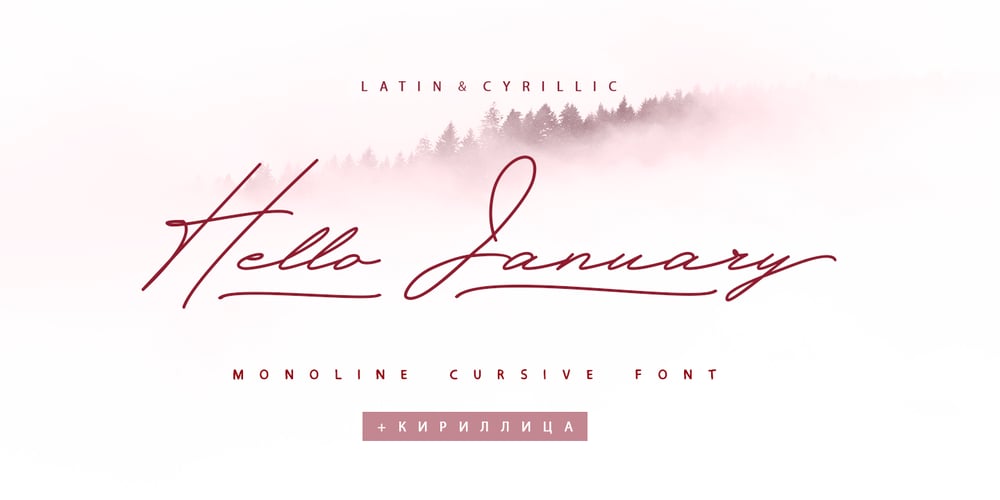
Hello January Cyrillic Font Family was designed by Iryna Dviliuk and published by Ira Dvilyuk. Hello January Cyrillic contains 2 styles and family package options. The slope and clear rhythm of the Hello January Cyrillic cursive script font will harmoniously blend in with the laconic design of your projects. Also, elements from the Hello January symbols font will be a good addition to it when creating logos.The font pair Hello January script font will look gorgeous on wedding stationery, love stories, branding materials, monoline logos, business cards, Insta quotes, elegant fashion sketches, and much more.Hello January script font contains the Cyrillic glyphs too.Hello January script is pretty monoline cursive font, plus a Symbols font with 36 lovely hand-drawn swashes and illustrations.Hello January script font contains a full set of uppercase and lowercase letters. Hello January Symbols is a font with over 36 hand-drawn elements, illustrations, and swashes that can help you to make your design unique and matchless. Combine and merge swashes and illustrations to create your own designs and make borders, frames, dividers, logos, and more (just use A-Z or a-z and 0-9 keys in the included Hello January Symbols font). A different symbol is assigned to each uppercase or lowercase standard character, so you do not need graphics software, just type the letter you need.Multilingual Support for 31 languages: Latin glyphs for Afrikaans, Albanian, Basque, Bosnian, Catalan, Danish, Dutch, English, Estonian, Faroese, Filipino, Finnish, French, Galician, Indonesian, Irish, Italian, Malay, Norwegian Bokmål, Portuguese, Slovenian, Spanish, Swahili, Swedish, Turkish, Welsh, Zulu. Cyrillic glyphs support Russian, Belorussian, Bulgarian, and Ukrainian languages.